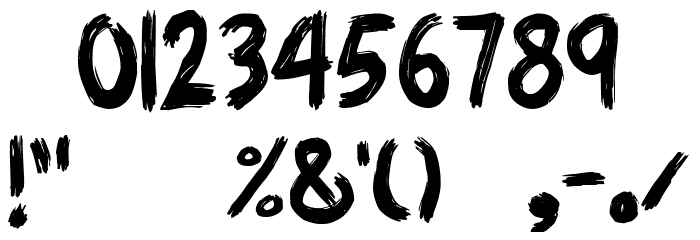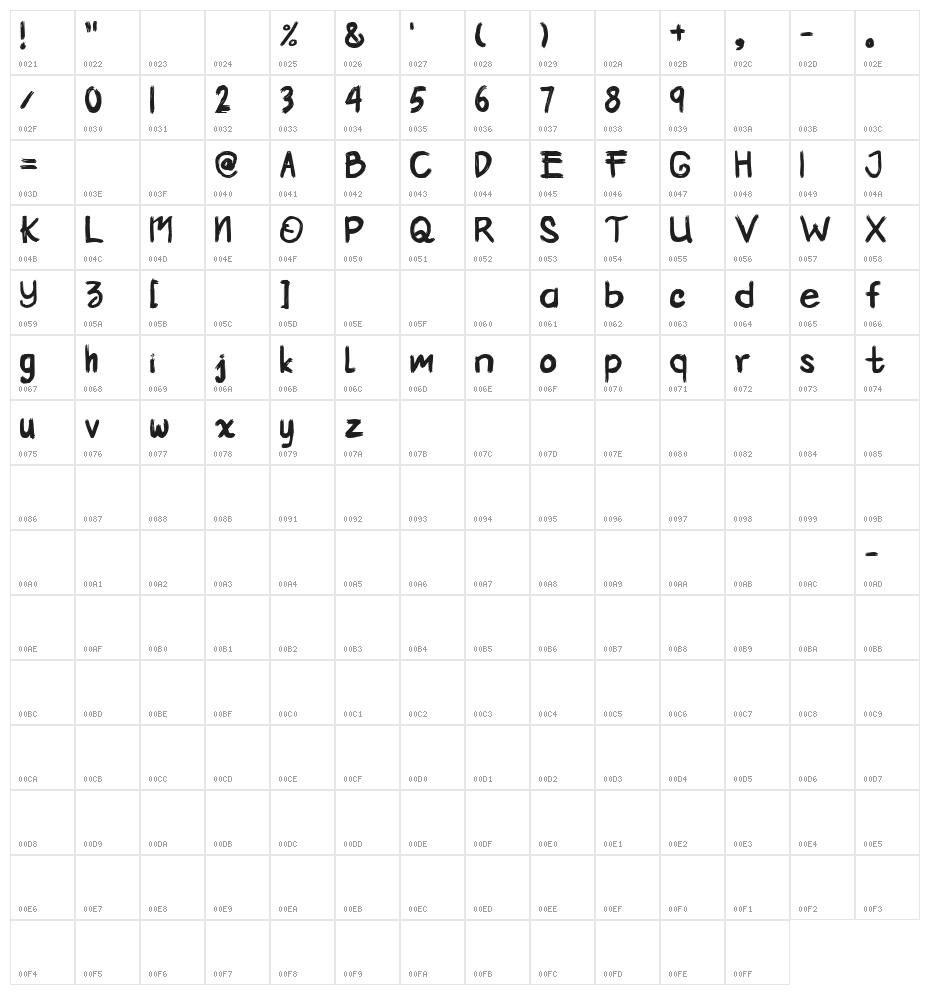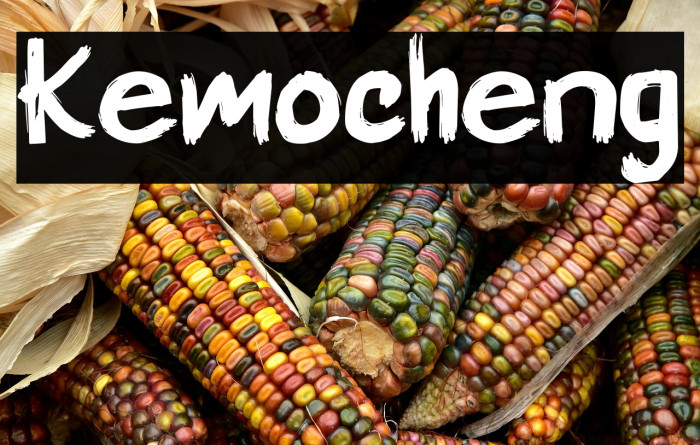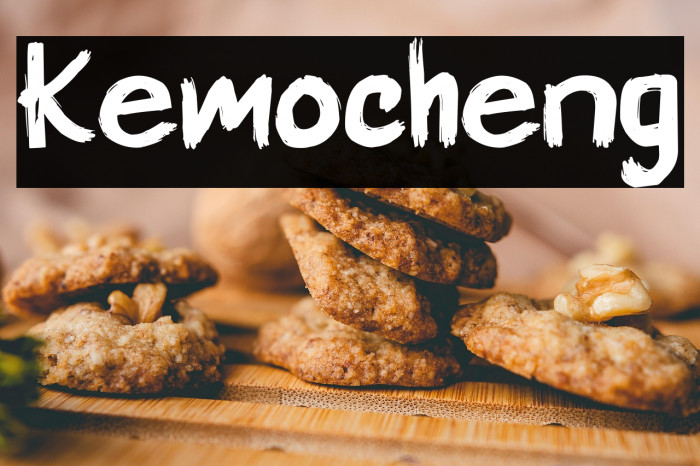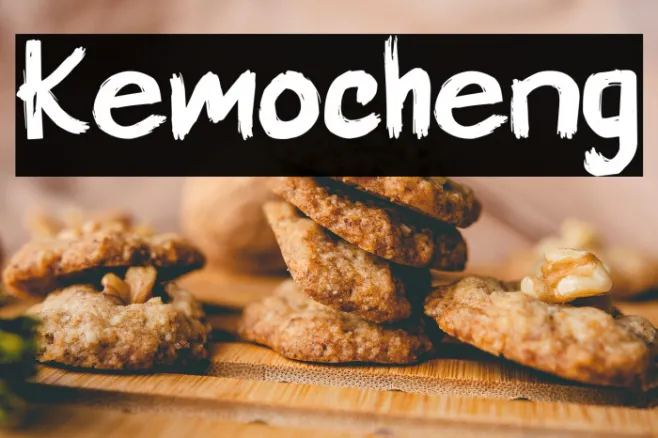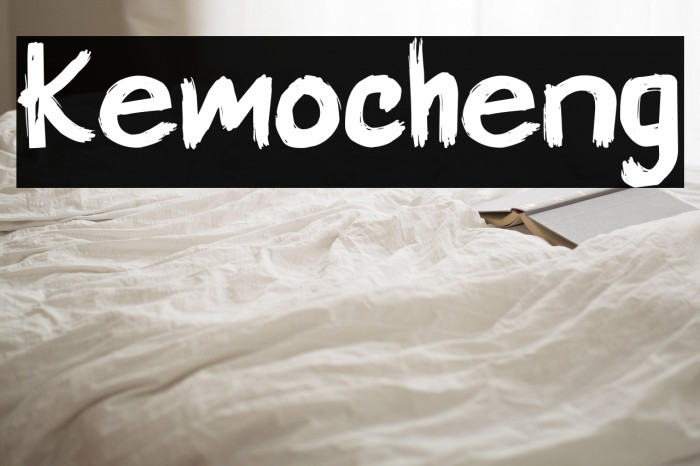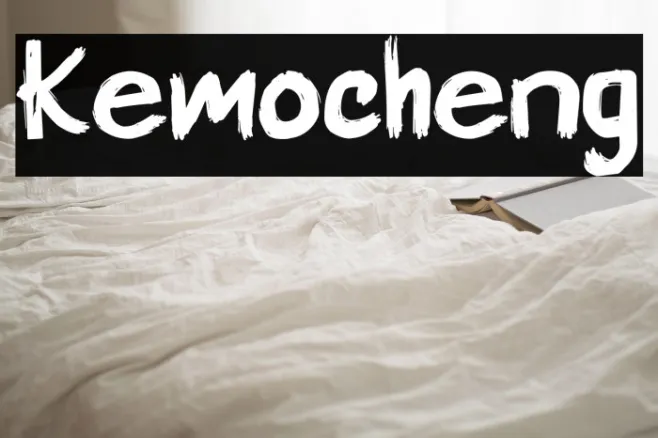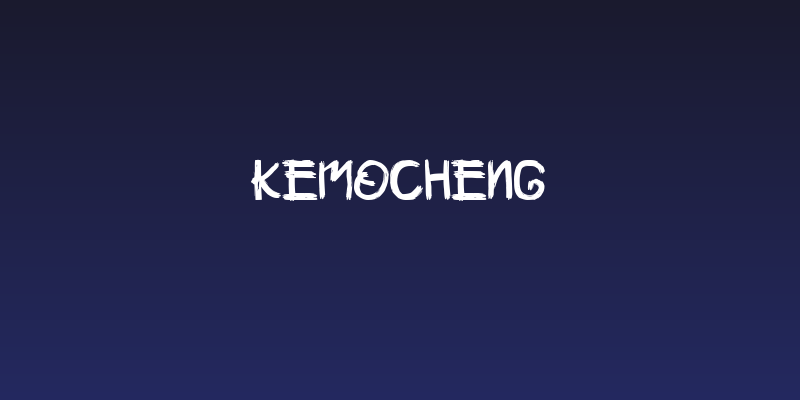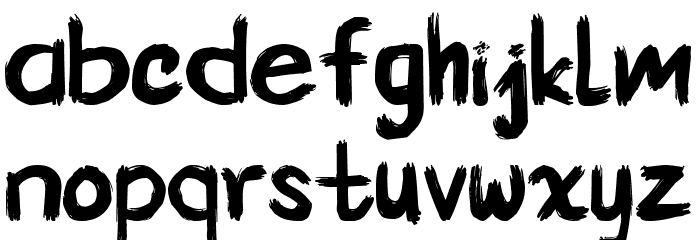
Kemocheng Font
Kemocheng Description
This font features a bold, brush-stroke style that exudes energy and dynamism. The characters are crafted with a rough, hand-painted appearance, giving them a raw and artistic feel. Each letter is unique, with varying thickness and texture, creating a sense of movement and spontaneity. The uppercase and lowercase letters maintain a consistent style, while the numbers and special characters complement the overall aesthetic. This font is ideal for projects that require a bold and expressive touch, such as posters, album covers, or artistic branding.